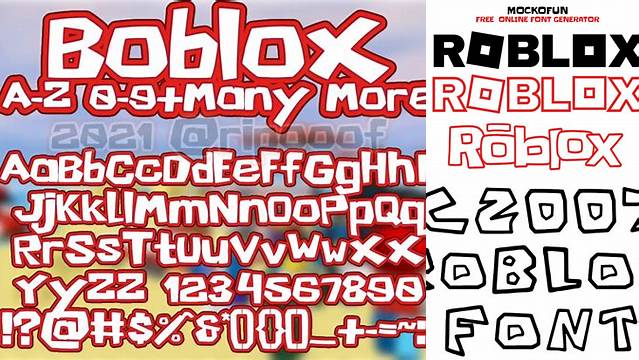
Free Roblox Font: DaFont Options & How To Use Them
Are you a Roblox enthusiast looking to add some flair to your creations? Or perhaps you're a designer aiming to capture that iconic Roblox aesthetic? One of the key elements in achieving the right look is, without a doubt, the font. The Roblox font is instantly recognizable, and finding the right one can make your project stand out. In this comprehensive guide, we'll dive into the world of Roblox fonts, focusing on where you can find them for free, especially on platforms like DaFont, and how to use them effectively.
What is the Roblox Font?
First, let's clarify what we mean by the "Roblox font." While Roblox doesn't officially use a single, unique font across all its platforms, the in-game text and promotional materials often feature a bold, blocky typeface that exudes a playful, energetic vibe. This style is crucial for maintaining the game's youthful and engaging appeal. Many fan-made creations and unofficial content aim to replicate this look, making font selection a vital step. The actual fonts used vary, but many resemble or are inspired by fonts in the sans-serif family, known for their clean and modern appearance. Popular choices include fonts with a rounded, slightly cartoonish feel, which perfectly complements Roblox's block-based design and vibrant color palette. Identifying and understanding these characteristics will help you choose the best font for your project, ensuring it resonates with the Roblox audience.
Key Characteristics of the Roblox Font
When we talk about the Roblox font, we're generally referring to a style characterized by several key elements. These include:
- Boldness: The font is typically thick and substantial, ensuring readability and impact.
- Sans-Serif: It lacks the small decorative strokes (serifs) found in fonts like Times New Roman, giving it a clean, modern look.
- Blocky: The letters often have a somewhat geometric, block-like appearance, fitting with Roblox's visual style.
- Rounded Edges: Many fonts used in or inspired by Roblox feature rounded corners, adding a friendly, approachable feel.
- Playful: The overall impression is energetic and fun, reflecting the game's target audience.
Understanding these characteristics is crucial when searching for the perfect font. You're not just looking for a font that says “Roblox,” but one that feels like Roblox. This involves considering not just the letterforms themselves, but also the overall tone and message the font conveys. For instance, a font that is too serious or elegant might feel out of place, while one that is overly childish might not be versatile enough for different applications. By keeping these key characteristics in mind, you can narrow down your options and select a font that truly captures the essence of Roblox.
Why Font Choice Matters in Roblox-Related Projects
The font choice in your Roblox-related projects matters for several reasons. Firstly, it significantly impacts the visual appeal and overall aesthetic. A well-chosen font can instantly connect your project with the Roblox universe, making it feel authentic and recognizable to fans. Imagine creating a game thumbnail, a promotional graphic, or even a piece of fan art; the right font can be the difference between a professional-looking creation and one that feels amateurish. Secondly, fonts play a crucial role in readability and user experience. In games, clear and legible text is essential for instructions, dialogues, and user interfaces. A font that is difficult to read can frustrate players and detract from their enjoyment. Similarly, in graphic designs, the font should complement the visuals and convey the message effectively. Thirdly, your font choice can significantly contribute to branding. If you're creating a series of Roblox-related content, using a consistent font can help establish a recognizable brand identity. This is particularly important for YouTubers, streamers, and game developers who want to build a following and create a cohesive visual presence. Finally, the right font can evoke specific emotions and associations. The bold, playful fonts often associated with Roblox create a sense of excitement, fun, and community. By carefully selecting your font, you can reinforce these positive emotions and make your project more engaging for your audience. In essence, font choice is not just a minor detail; it's a critical element that can significantly impact the success and reception of your Roblox-related endeavors.
- Start with Specific Keywords: Begin your search with precise keywords that describe the Roblox font style. Instead of just searching for "free fonts," try more targeted terms like "blocky sans-serif," "cartoon typeface," "gaming fonts," or even "pixel fonts." These keywords will help you filter the results and focus on fonts that are likely to match the Roblox aesthetic.
- Use the Font Categories: DaFont organizes its fonts into various categories, such as Sans Serif, Script, Decorative, and more. Navigating through these categories can help you discover new fonts that you might have missed using keywords alone. The Sans Serif and Techno categories are particularly relevant for finding Roblox-style fonts.
- Utilize the Preview Feature: DaFont's preview feature is a game-changer. Before downloading a font, type in your own text in the preview box to see how it will look in your project. This allows you to assess the font's readability, style, and overall suitability for your needs. Experiment with different sizes and colors to get a comprehensive understanding of the font's appearance.
- Explore Similar Fonts: When you find a font that you like, DaFont often displays a section of similar fonts below the preview. This is a fantastic way to discover variations and alternatives that might be even better suited for your project. Take advantage of this feature to expand your options and refine your selection.
Finding the perfect Roblox font doesn't have to be a daunting task. With resources like DaFont and Google Fonts, a vast array of free options is at your fingertips. By understanding the key characteristics of the Roblox font style – boldness, sans-serif design, blocky shapes, and a playful feel – you can effectively search for and select fonts that capture the essence of the game. Remember to consider the readability, tone, and context of your project when making your font choices. Experiment with different fonts and combinations to find the perfect balance between style and functionality. Once you've downloaded and installed your chosen font, you can seamlessly incorporate it into your Roblox-related projects, whether you're creating game graphics, promotional materials, or fan art. By following the tips and guidelines outlined in this article, you'll be well-equipped to make informed font selections that enhance the visual appeal and user experience of your creations. So go ahead, explore the world of free Roblox fonts, and let your creativity shine! With the right typeface, you can add a professional and authentic touch to your projects, captivating your audience and bringing your Roblox visions to life. Remember, the font is more than just a visual element; it's a powerful tool for communication and expression. Use it wisely, and you'll be amazed at the impact it can have on your work.